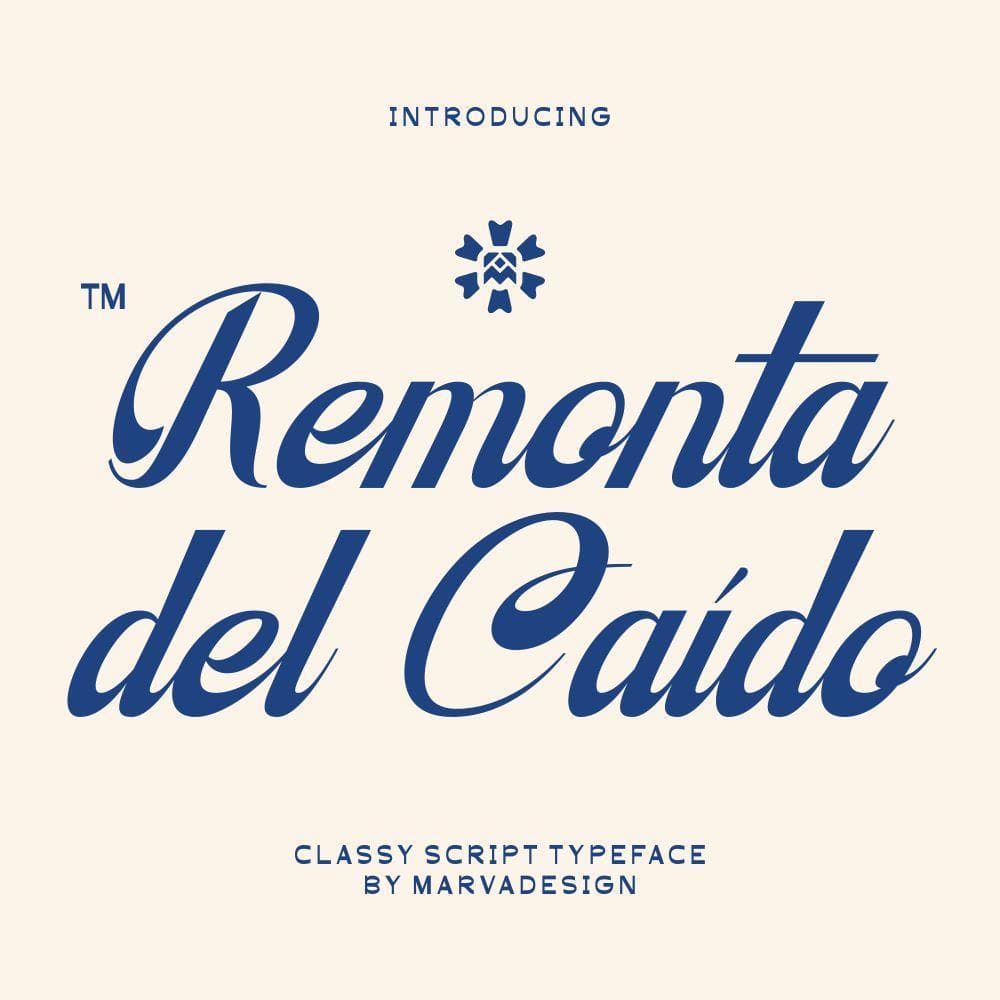
<p><strong>Remonta del Caído</strong> is a refined script typeface that combines classical elegance with bold expression. Its flowing yet disciplined letterforms evoke the grace of European vintage aesthetics while maintaining strong structural integrity, making it highly legible across modern design contexts. Designed with both beauty and purpose, this typeface symbolizes resilience and dignity—rising after a fall. It includes a comprehensive set of standard characters, alternates, numerals, symbols, and multilingual support, making it suitable for a wide range of applications from branding and editorial design to luxury packaging. With its timeless curves and expressive personality</p>